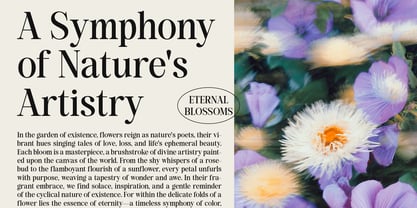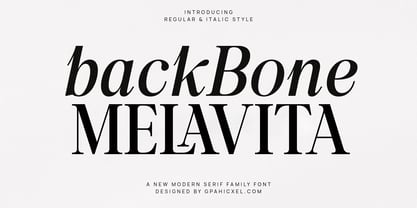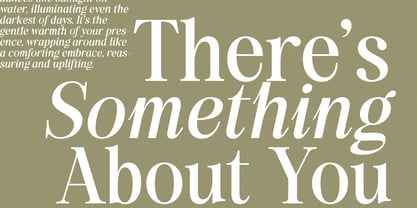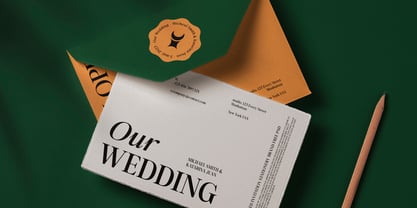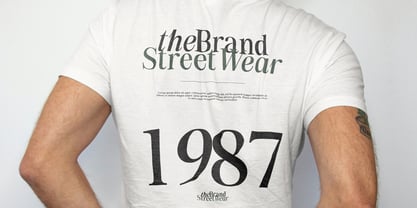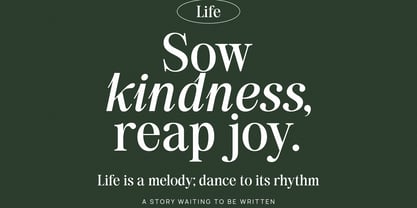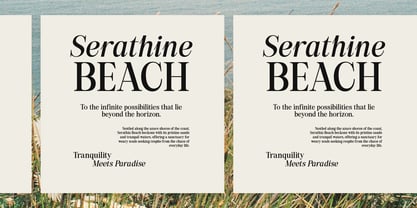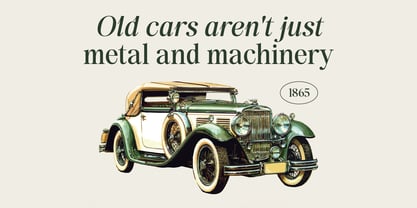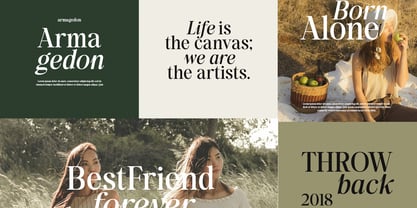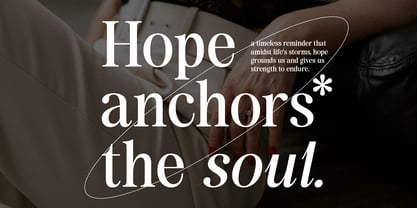
Back Bone Melavita
por Graphicxell
La familia tipográfica Back Bone Melavita fue diseñada por Graphicxell y publicada por Graphicxell. Back Bone Melavita contiene 2 estilos y opciones de paquete familiar.
Back Bone Melavita Combination Font is a refined blend of classic charm and modern sophistication, designed to elevate your creative projects with effortless elegance. This striking serif font features a harmonious interplay between its regular and italic styles, offering a versatile typographic experience that balances structure with artistic flair.
Crafted for clarity and high readability, Back Bone Melavita is the perfect choice for designers and brands aiming to make a bold yet tasteful statement. Its clean lines and graceful curves lend a luxurious and contemporary touch to any layout, while the subtle contrasts between weights and styles add visual interest without overpowering your message.
Whether you're working on high-end branding, stylish editorials, or digital content, this font adapts seamlessly to your vision. It’s ideal for creating polished logos, sleek website headers, and standout magazine titles. Back Bone Melavita is also an excellent choice for long-form content, such as articles and blog posts, thanks to its legibility and refined character spacing.
What sets this font apart is its dual-style functionality. The fusion of regular and italic allows you to build visual hierarchy and dynamic compositions within a single typeface family—perfect for everything from branding agencies to luxury packaging, social media graphics, and advertising campaigns.
Its timeless yet fresh aesthetic gives Back Bone Melavita the ability to transcend design trends, making it a lasting asset in your font library. Whether you’re designing for fashion, food, corporate, or lifestyle brands, this font brings a high-end feel to your work without sacrificing readability or accessibility.